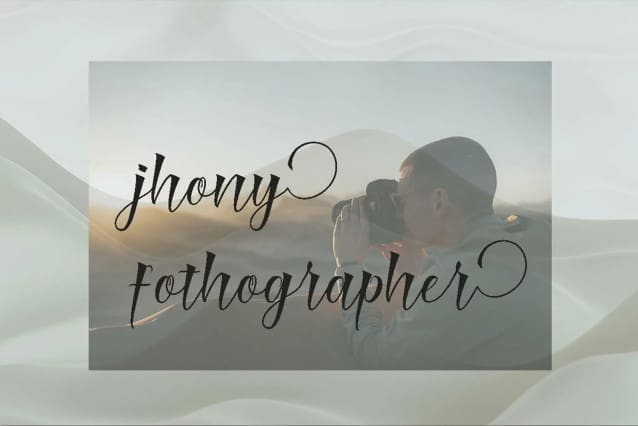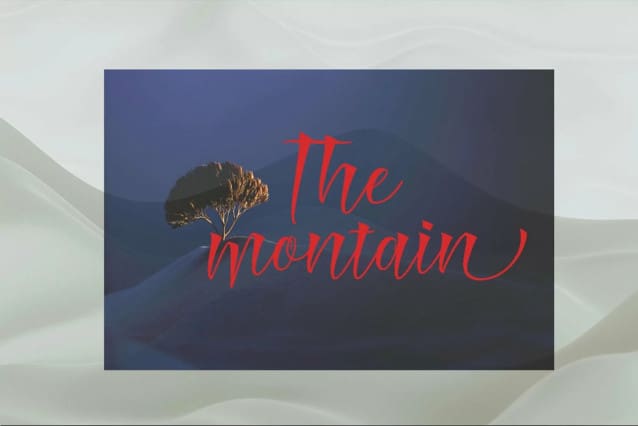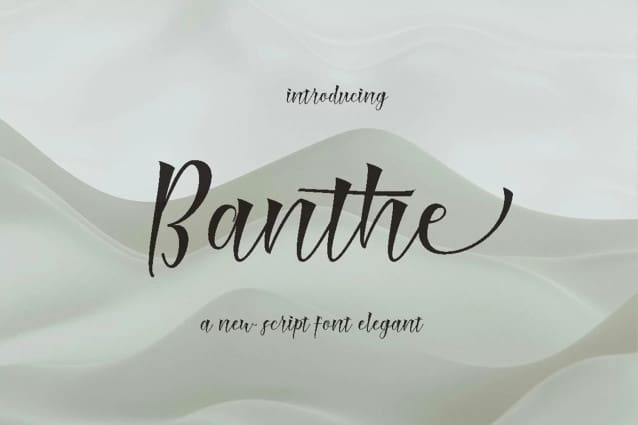
Banthe Script Font
Banthe Script Fonts comes with a combination of modern and elegant fonts. While maintaining a feminine and elegant which is a perfect combination to your various design needs.
This handcrafted style makes it perfect for logos & branding, invitations, stationery, wedding designs, social media, advertisements, printed quotes, product packaging, labels, photography, watermarks, special events, or even magazine layouts.